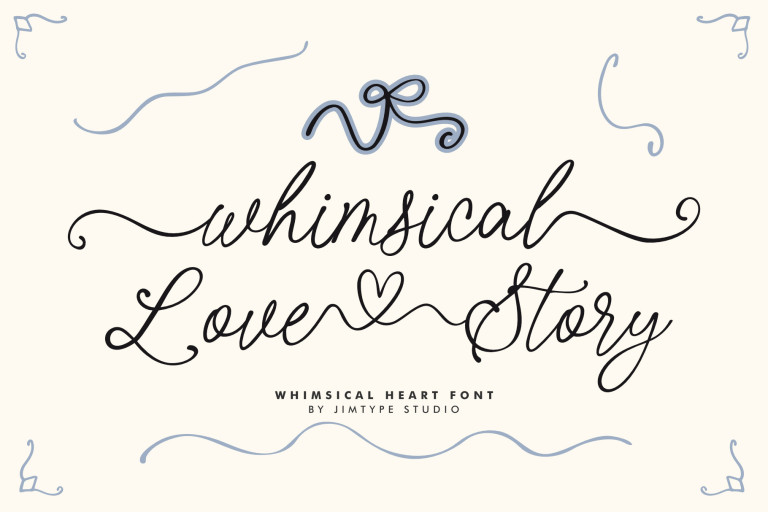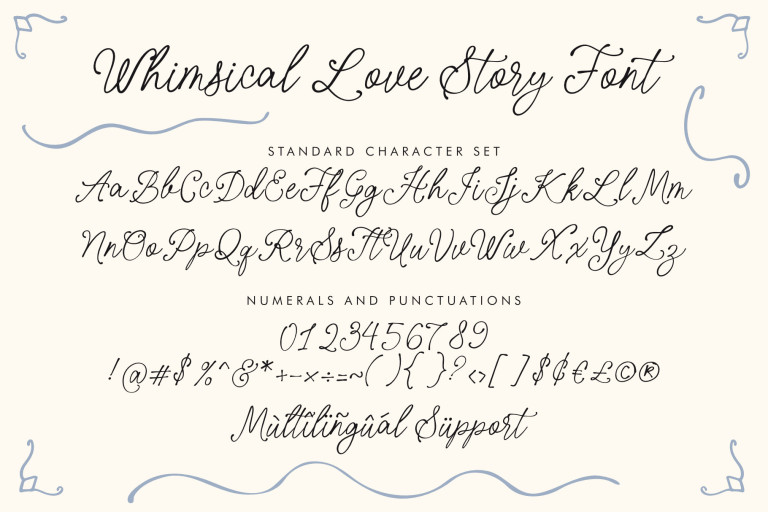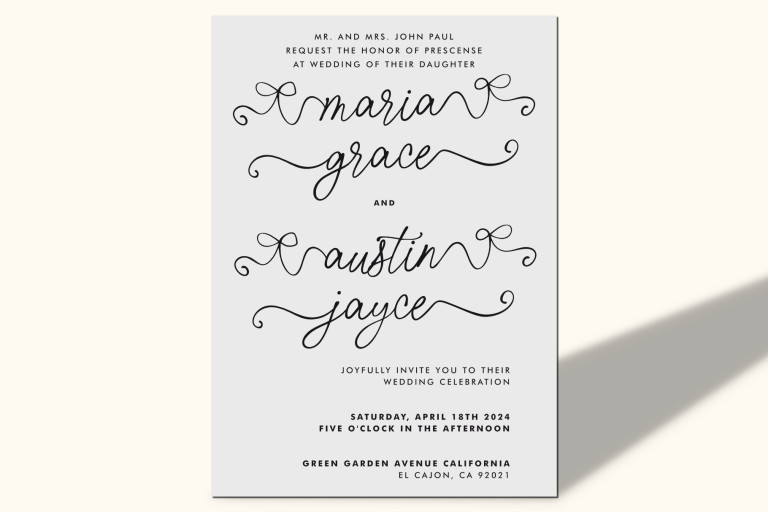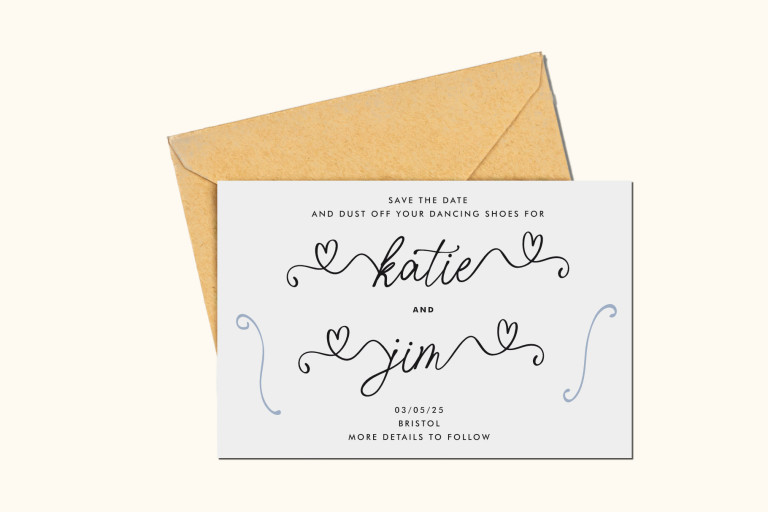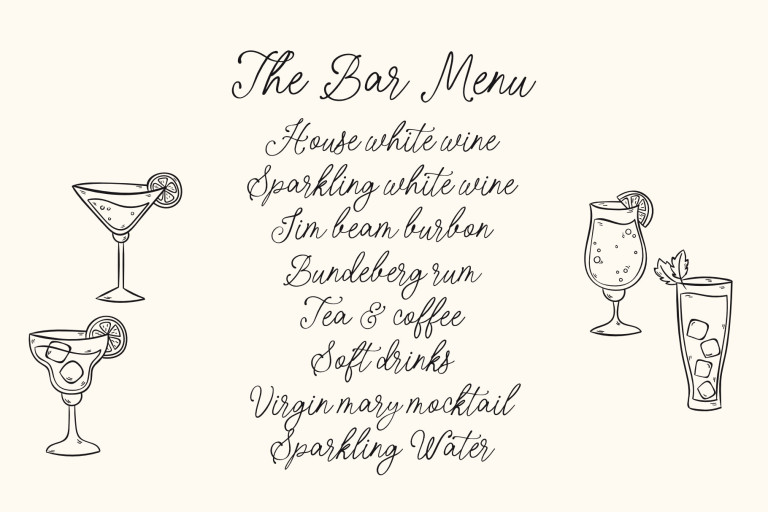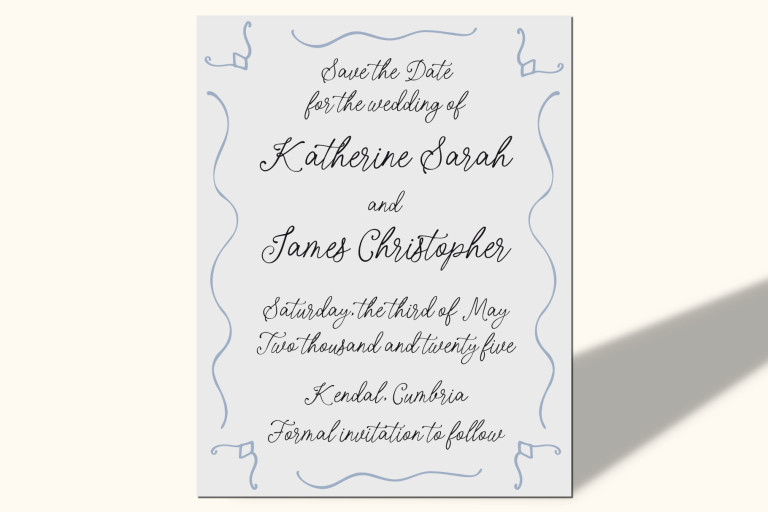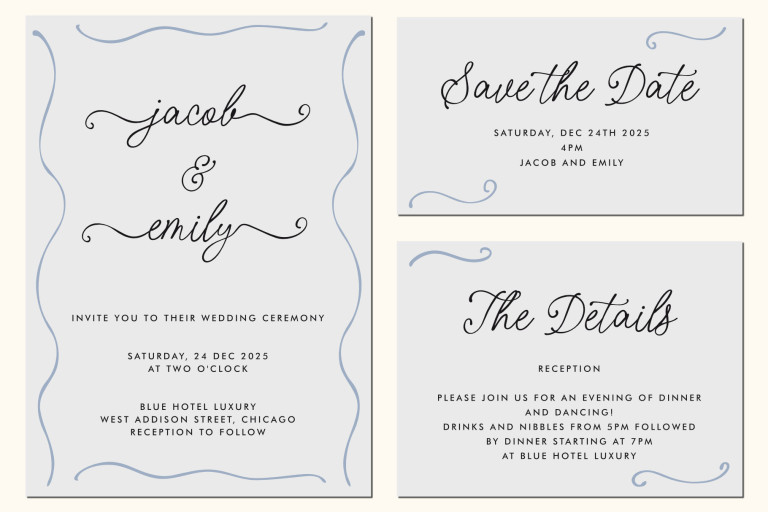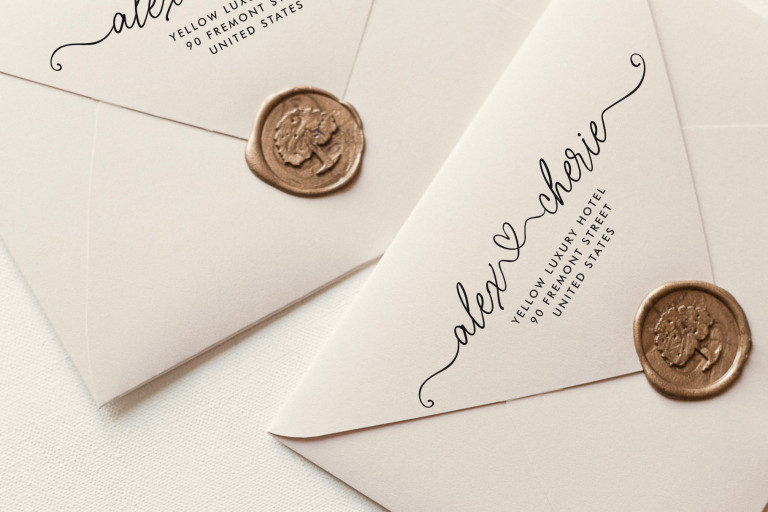
Whimsical Love Story -  Whimsical Business Branding Font from Jimtype Studio
Whimsical Love Story
Whimsical Love Story - Heart
Whimsical Love Story - Tail Heart
Whimsical Love Story - Tail Ribb
Whimsical Love Story - Tail
Whimsical Love Story –  Whimsical Business Branding Font from Jimtype Studio
Whimsical Love Story is a unique font with a romantic feel and a touch of feminine charm. Designed with natural flow, elegance, and flexibility, it’s perfect for designs that require a sense of love and a whimsical handwritten touch.
Whimsical Love Story is perfect for wedding invitations, cute art prints, branding, feminine designs, greeting cards, whimsical prints, signage, branding, and creative projects.
Whimsical Love Story features lowercase ligatures with added hearts, as well as initial and final lowercase swashes that are incredibly beautiful when combined.
• Swashes Heart